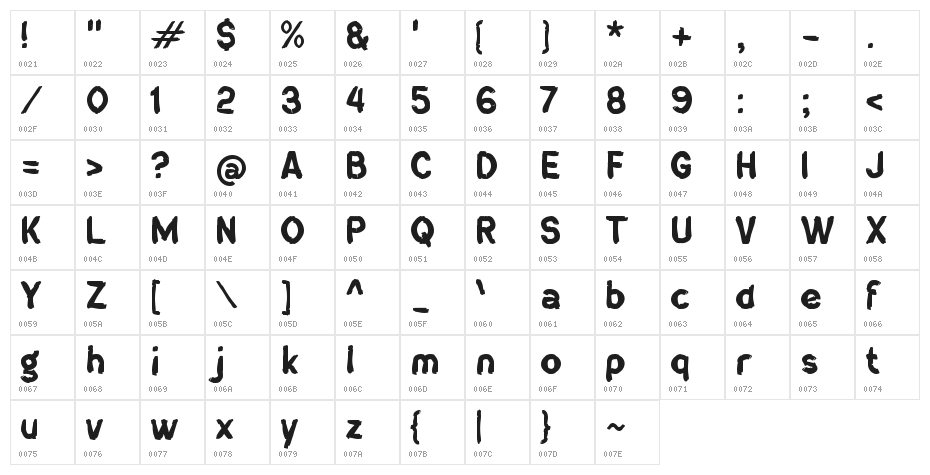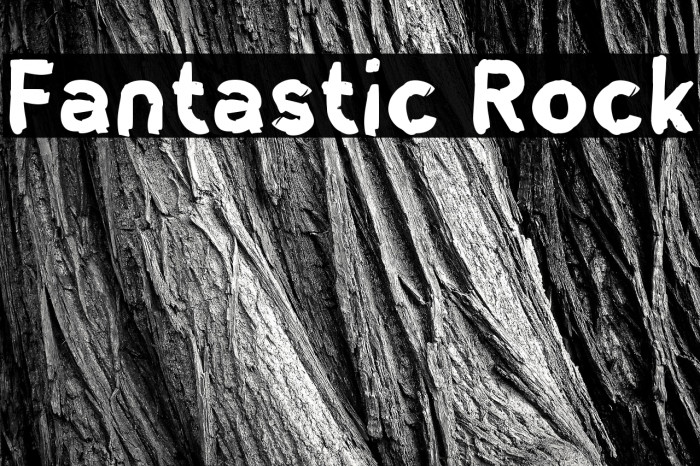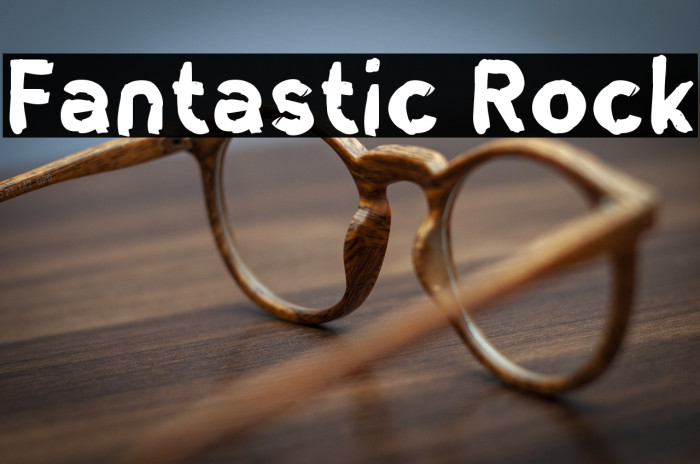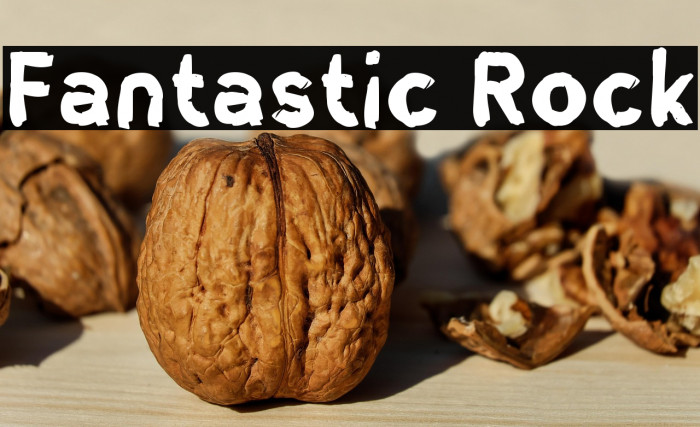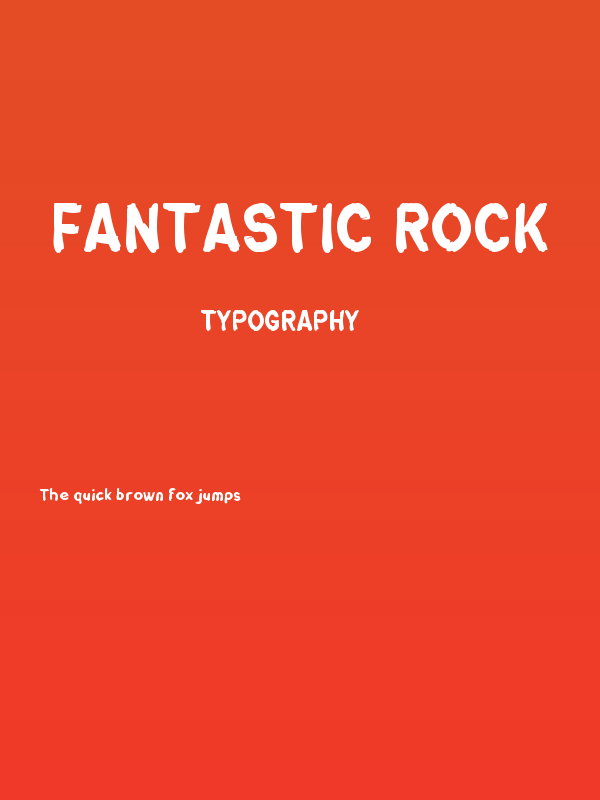
Fantastic Rock Font
Fantastic Rock Description
This font features a bold and rugged style, reminiscent of hand-painted signage with a playful and energetic vibe. The characters are uneven and slightly irregular, giving it a handcrafted appearance. The strokes are thick and bold, with a rough texture that adds to its dynamic and lively feel. This font is perfect for projects that require a strong and impactful visual presence, such as posters, headlines, and branding materials. Its unique style makes it stand out, capturing attention with its bold and expressive character forms.
Proposed ProjectsIdeal for posters, headlines, branding materials, and any project needing a strong visual impact.